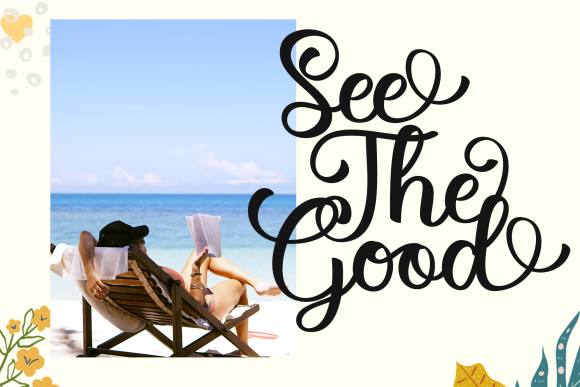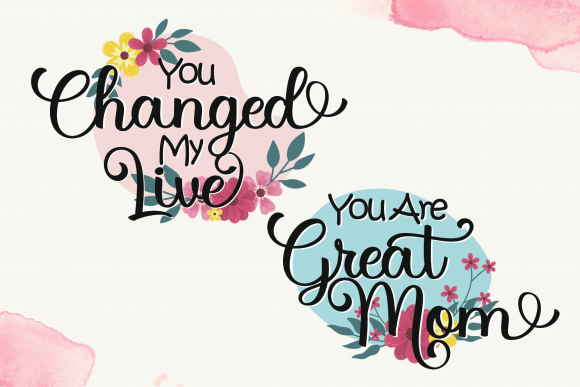
Hunter Bee Font
db-ku.com - Script & Handwritten -- Hunter Bee is an elegant and dainty handwritten font that features sweet and delicate swashes. This original look will appeal to a wide range of crafty ideas, from letterheads and titles, to stationery. This font is PUA encoded which means you can access all of the glyphs and swashes with ease!